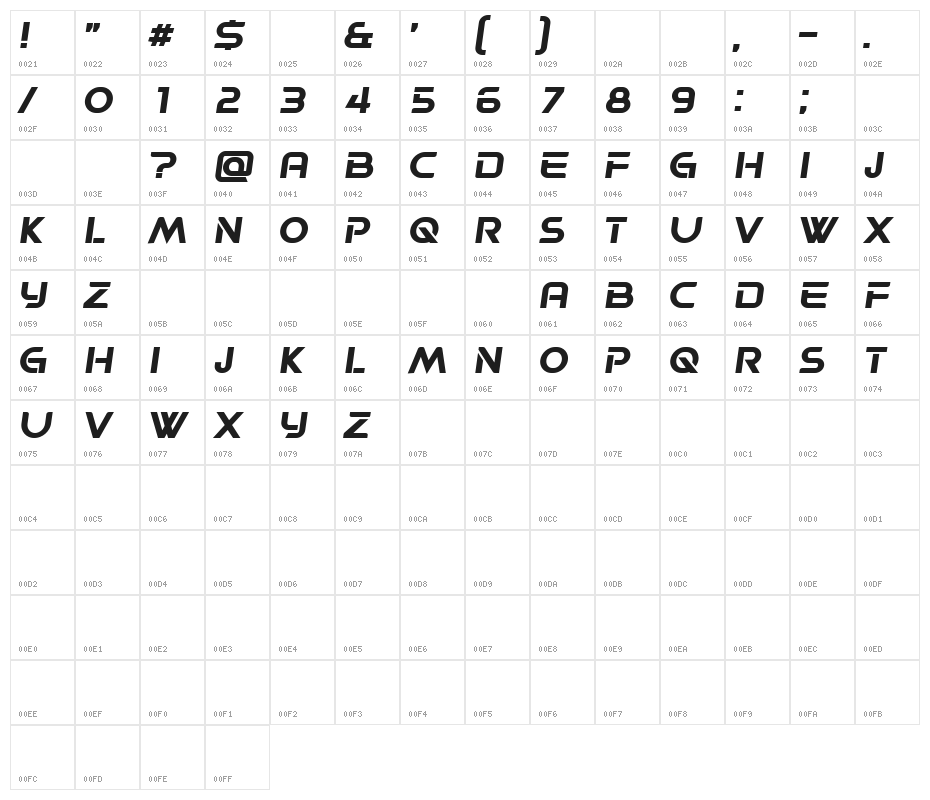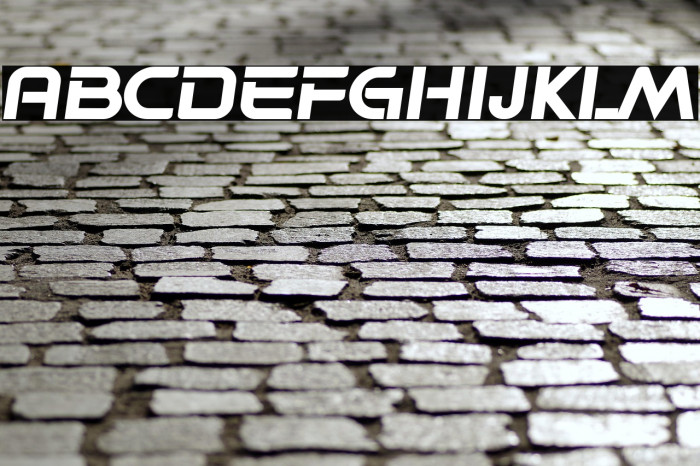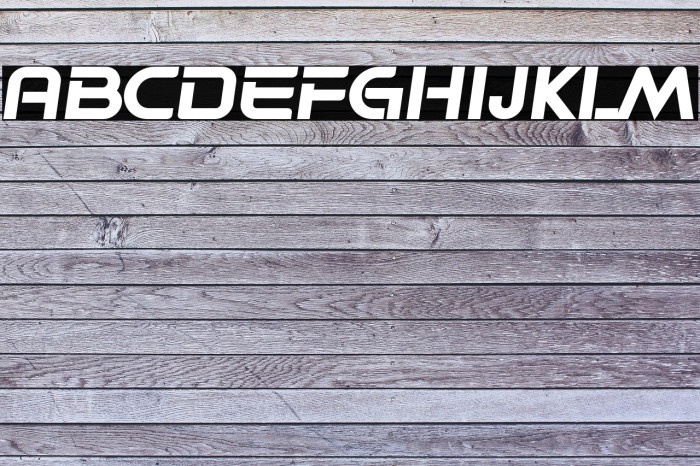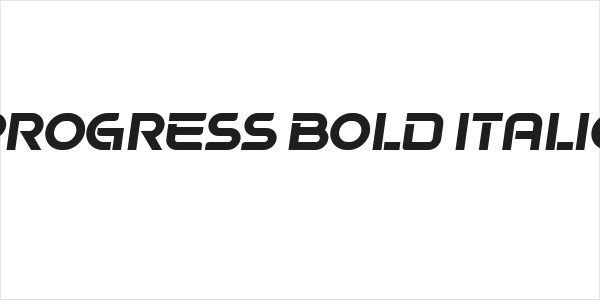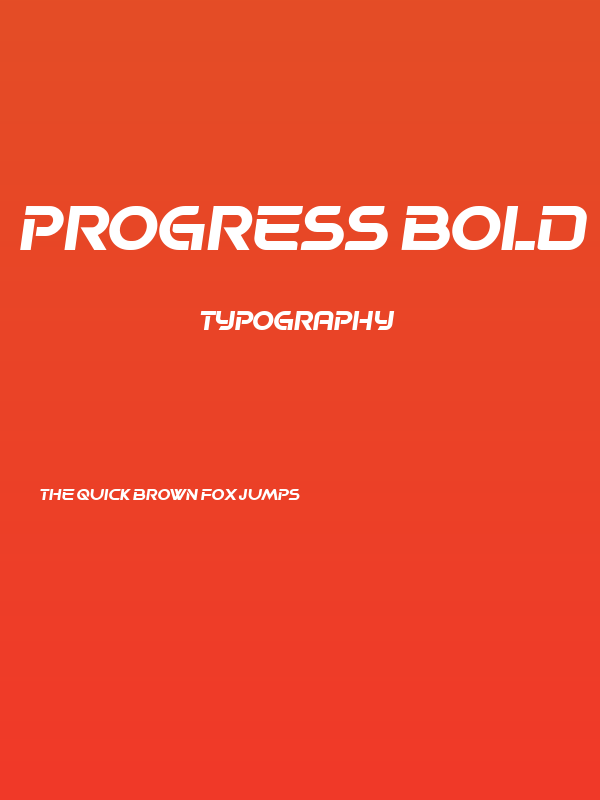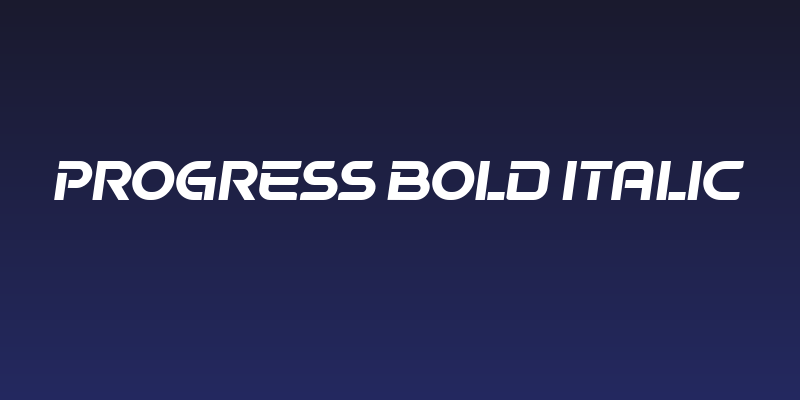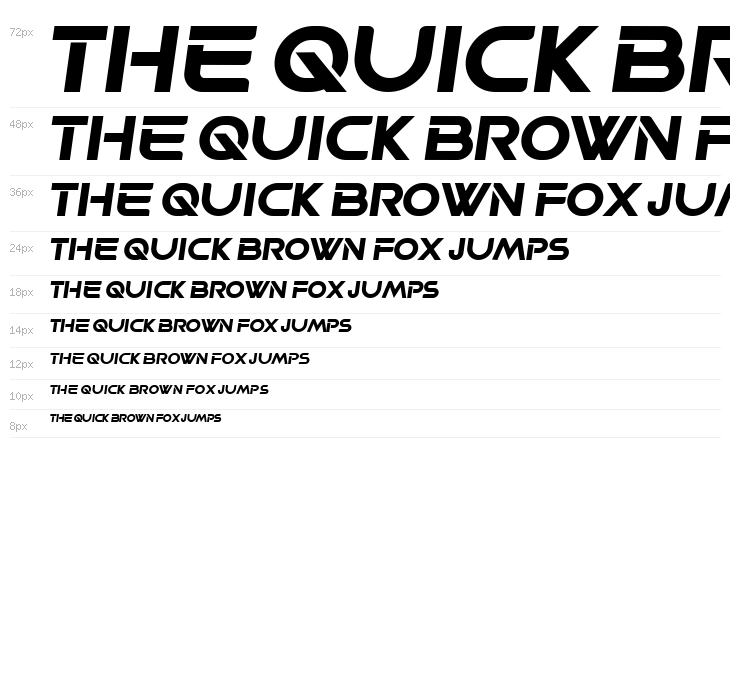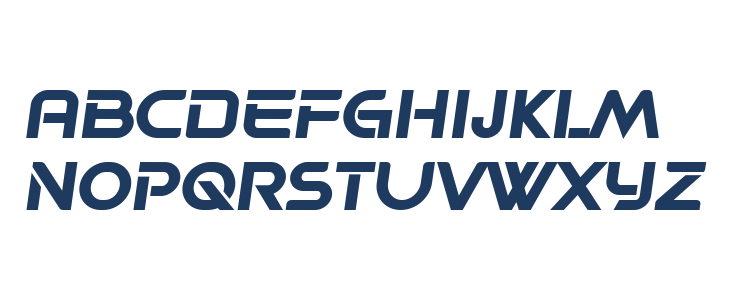
Progress Bold Italic Font
Progress Bold Italic Description
This font features a bold and italicized style, characterized by its strong geometric shapes and dynamic slant. The uppercase letters are distinct with sharp angles and a futuristic feel, while the lowercase maintains a consistent style that complements the uppercase. The numerals are clear and bold, ensuring readability. Special characters are designed to match the overall aesthetic, making them suitable for various design needs. The font's modern and sleek appearance makes it ideal for projects that require a contemporary and assertive look.
| Proposed Projects | Ideal for branding, headlines, posters, and digital media that require a modern and bold aesthetic. |